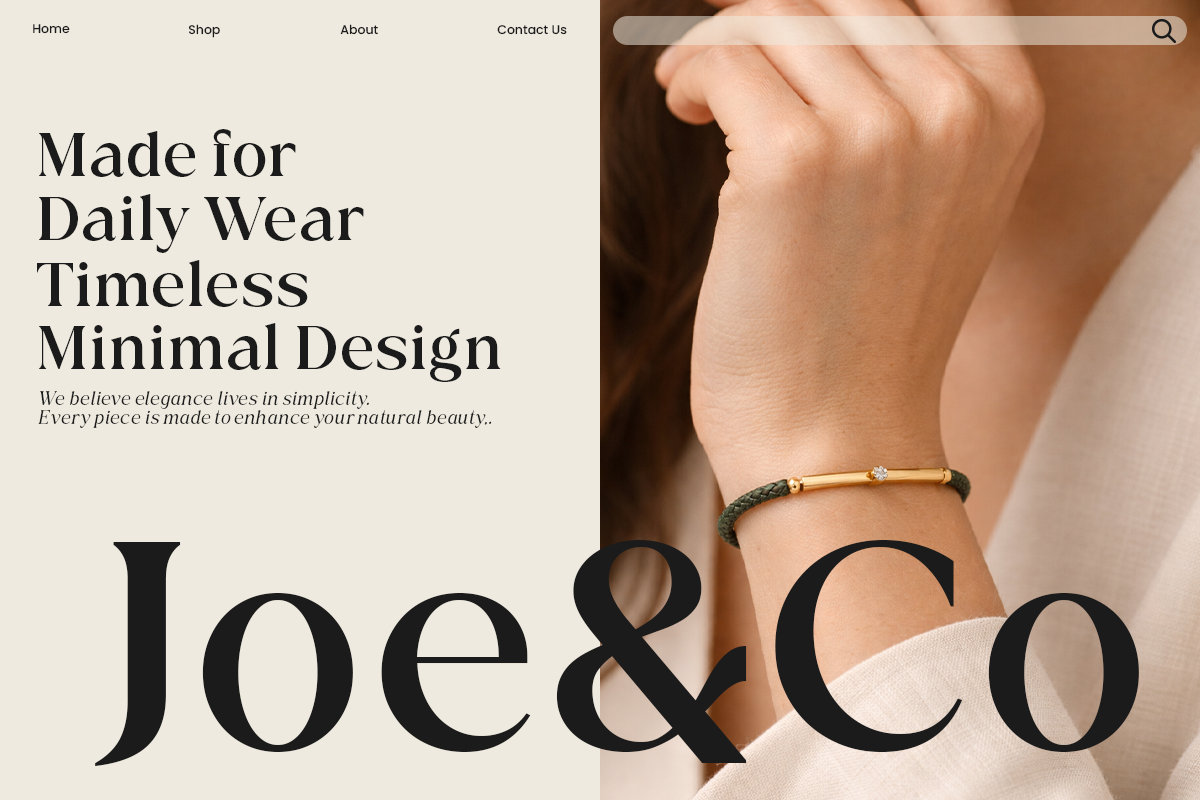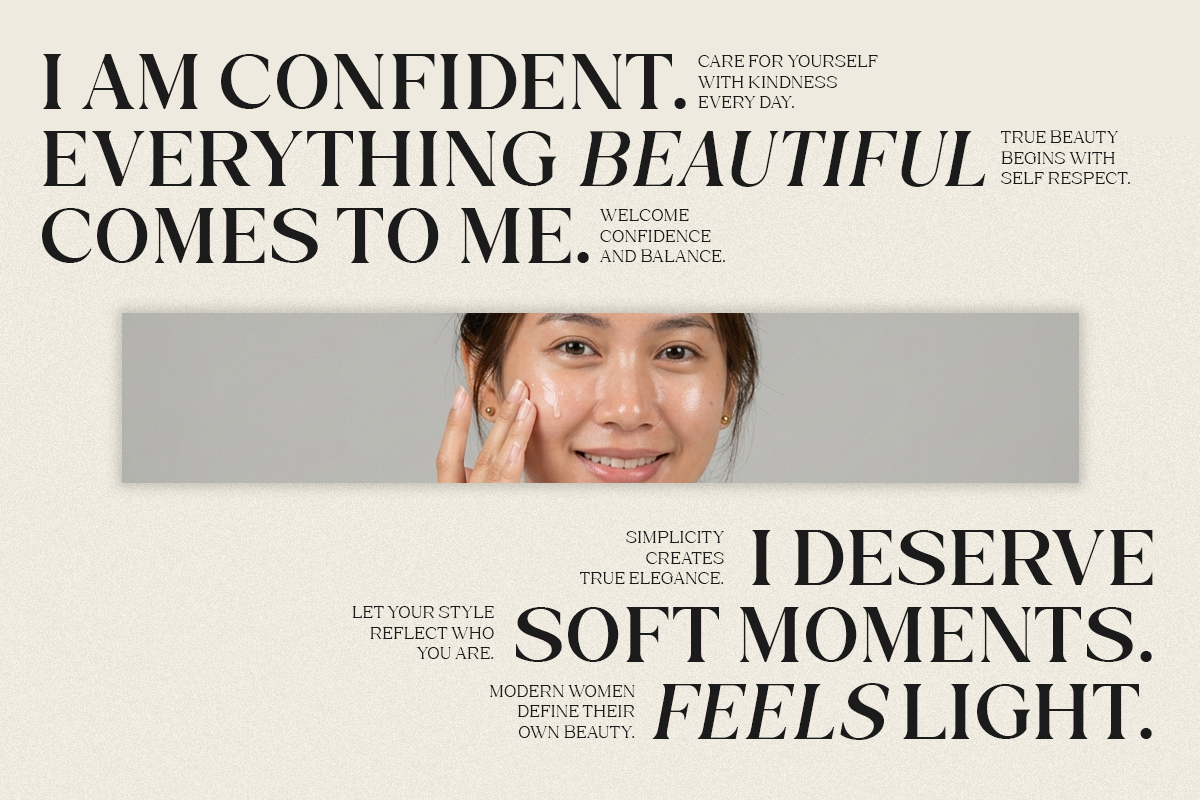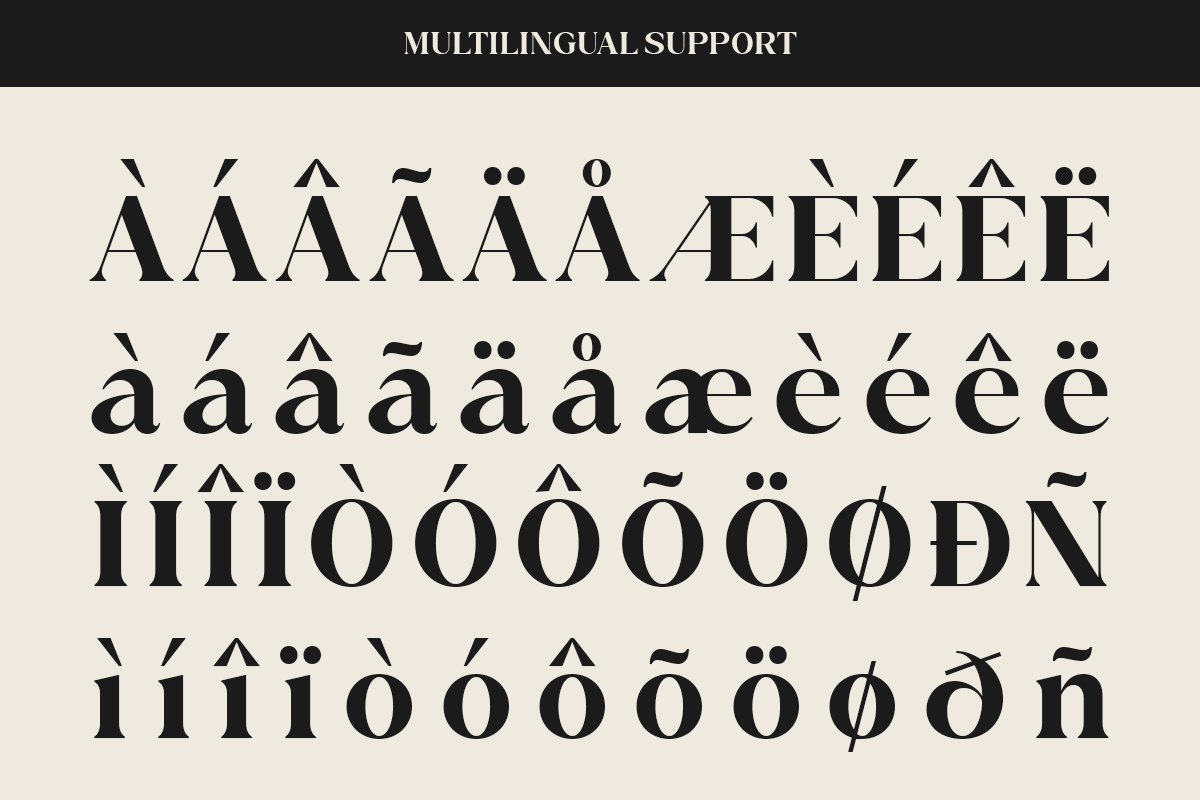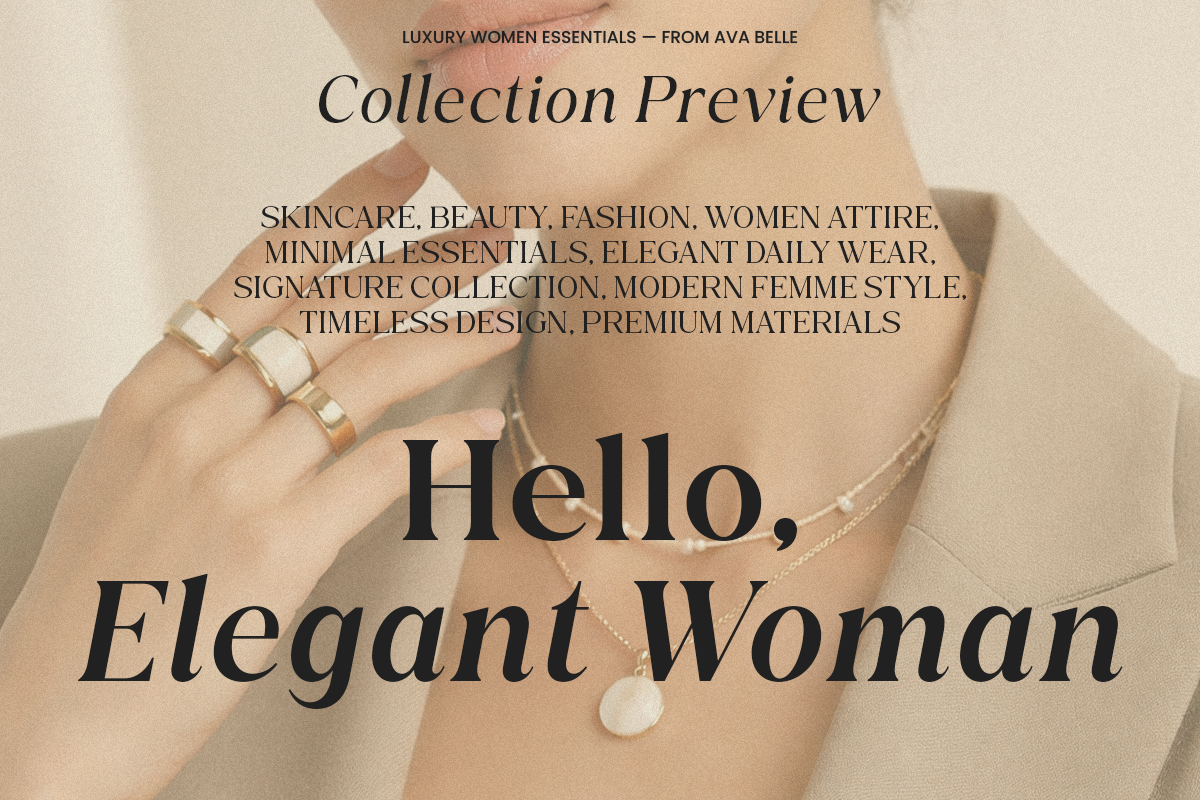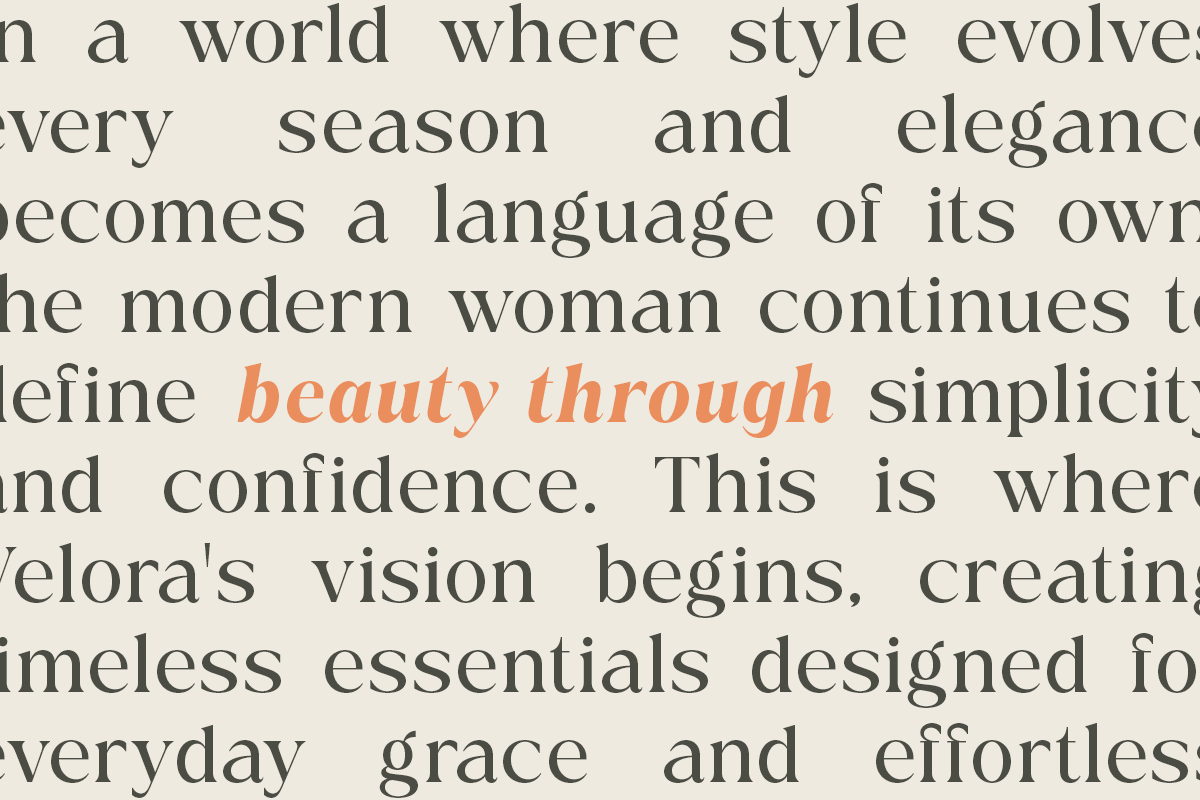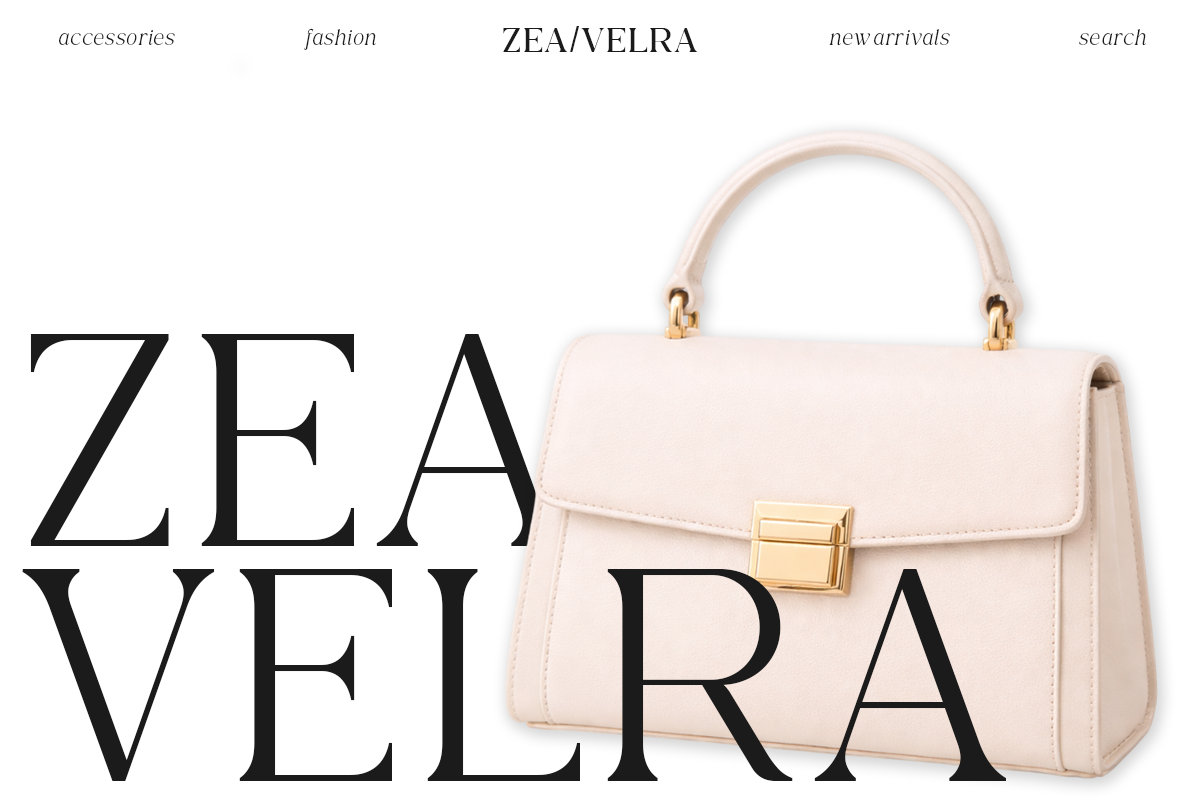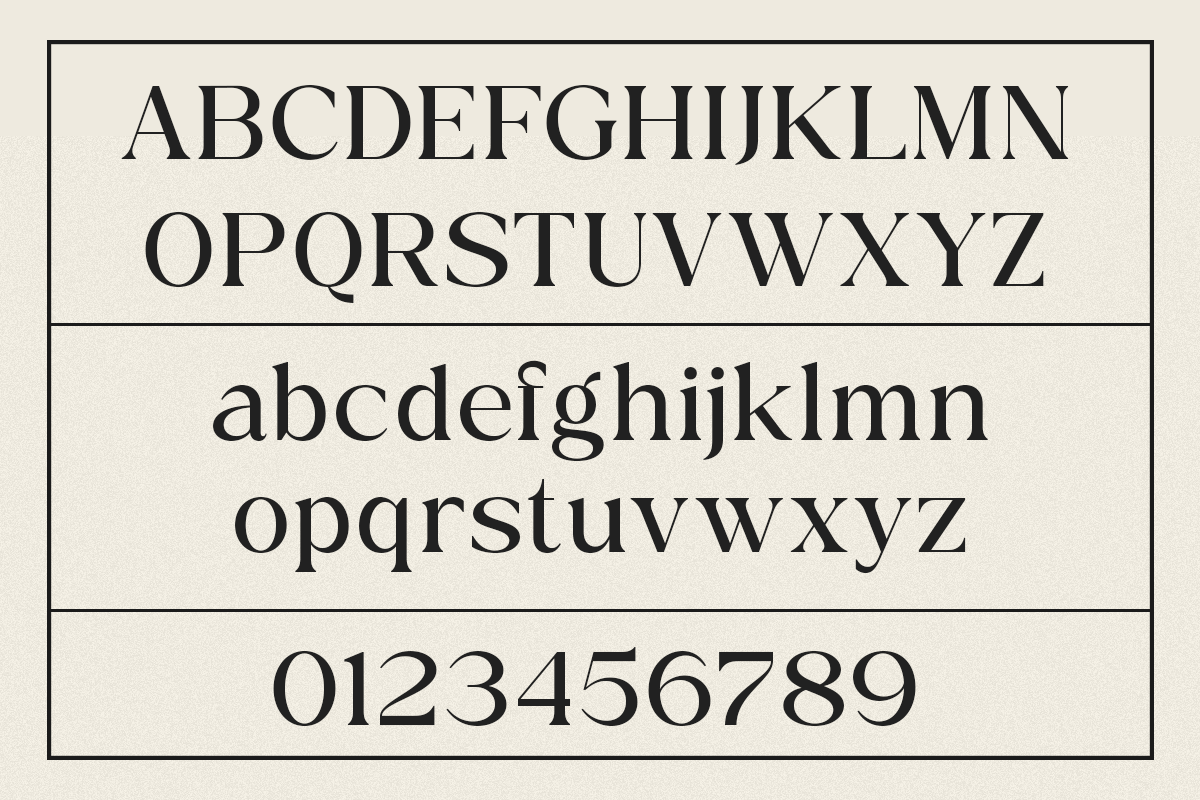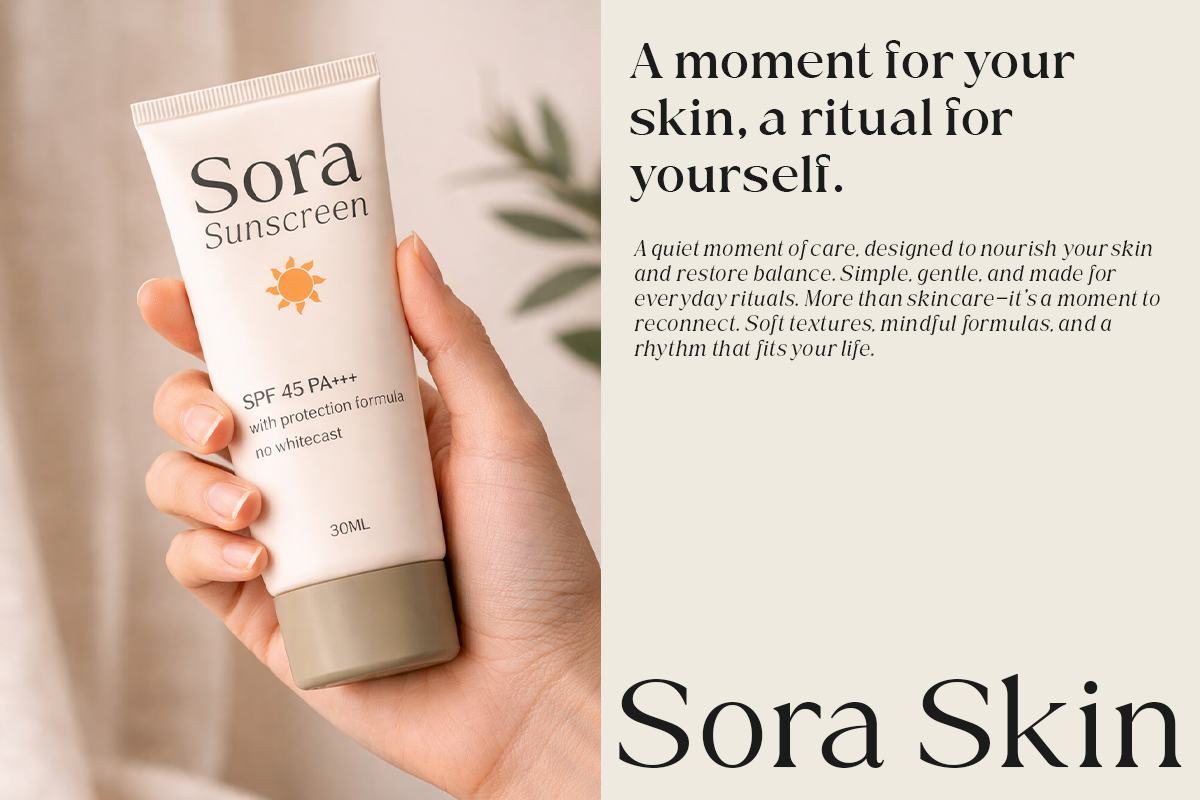
Ethereal Glamour - The Elegant Serif
Ethereal Glamour is a refined serif typeface that embodies softness, elegance, and timeless beauty. Inspired by high-end fashion editorials and graceful aesthetics, this font combines delicate curves with strong serif structures to create a sophisticated visual harmony. Its presence feels luxurious yet subtle, making it perfect for designs that aim to express femininity and class.
Carefully crafted for versatility, Ethereal Glamour shines in editorial layouts, branding, wedding designs, beauty campaigns, and luxury packaging. The contrast between its bold serif forms and elegant italic style adds depth and character, allowing designers to create compositions that feel both modern and poetic.
This typeface is ideal for creatives who want to deliver a premium and graceful impression. Whether used for headlines or refined typography details, Ethereal Glamour elevates your design with a soft, romantic, and high-fashion aesthetic.
- Standard Uppercase & Lowercase
- Symbol & Number